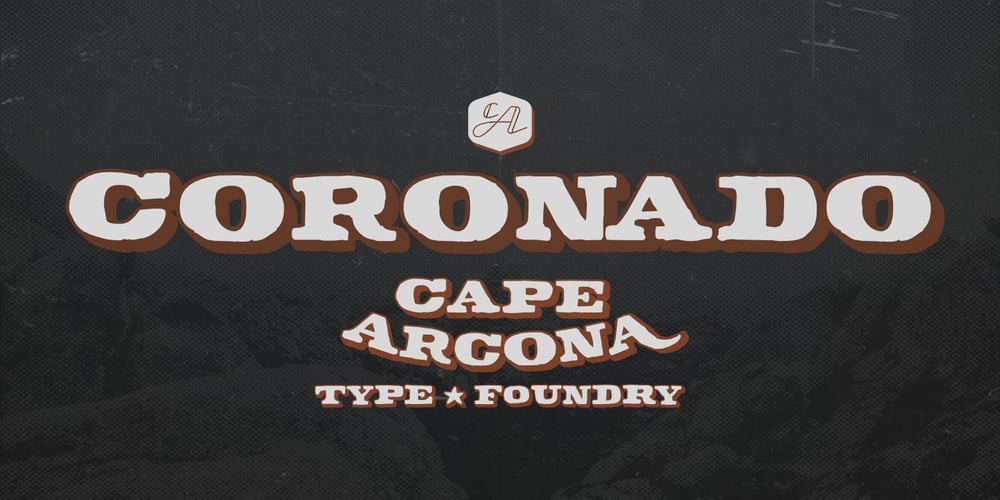
CA Coronado Font Family was designed by Stefan Claudius and published by Cape Arcona Type Foundry. CA Coronado contains 2 styles and family package options. CA Coronado is a nice display font for use in titles, logos and headlines. With its used look it creates a friendly and human feeling. Upper- and lower-case characters differ in details and can be mixed to get a vivid look. For the best authentic look, the ‘Regular’ can be used as filling and complements the Shadow-style.